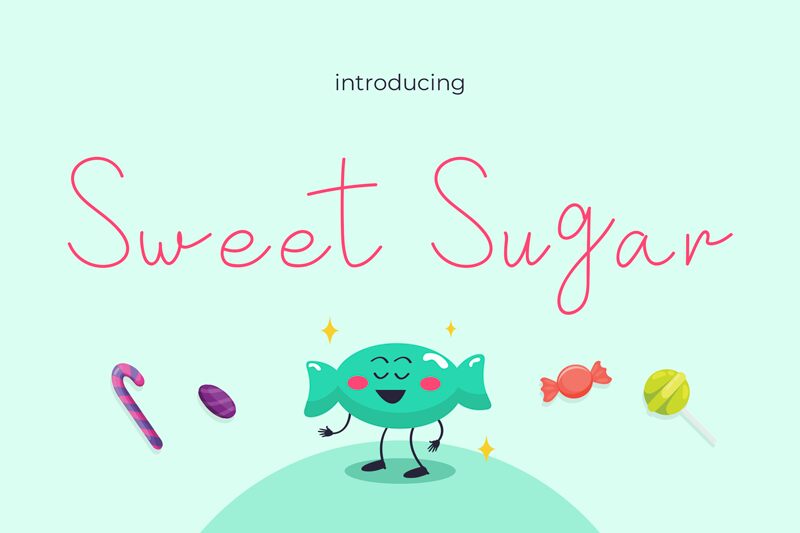
Sweet Sugar font by Pinisiart is a free handwritten font with casual strokes and artistic curvature. The typeface showcases a flowing selection of letters delivered unrefined. The informal nature and lively tone of the displayed elements make it the ideal addition to youthful designs that want to send a message with ease.
Sweet Sugar font can be used for food and beverage branding projects, casual text in children’s storybooks, social media posts, note-taking digital apps, headlines, advertisements, and more.